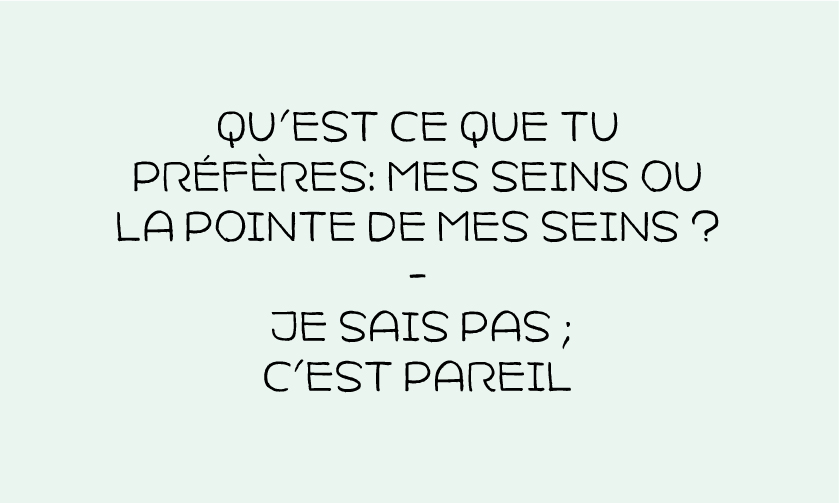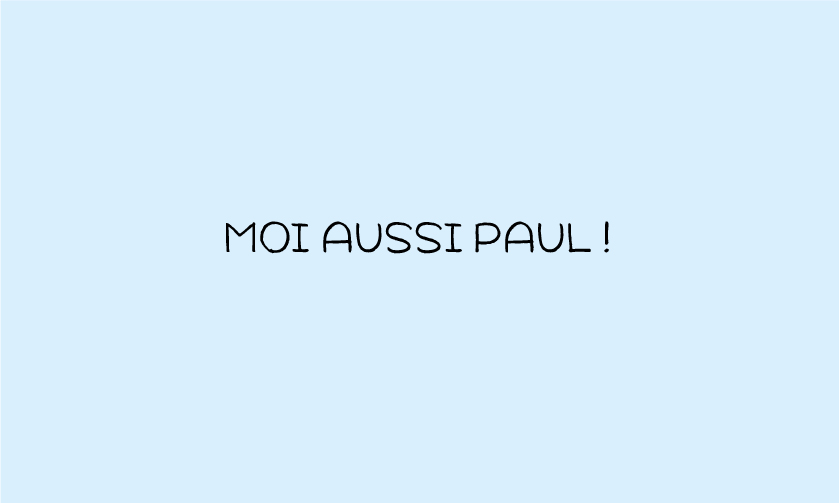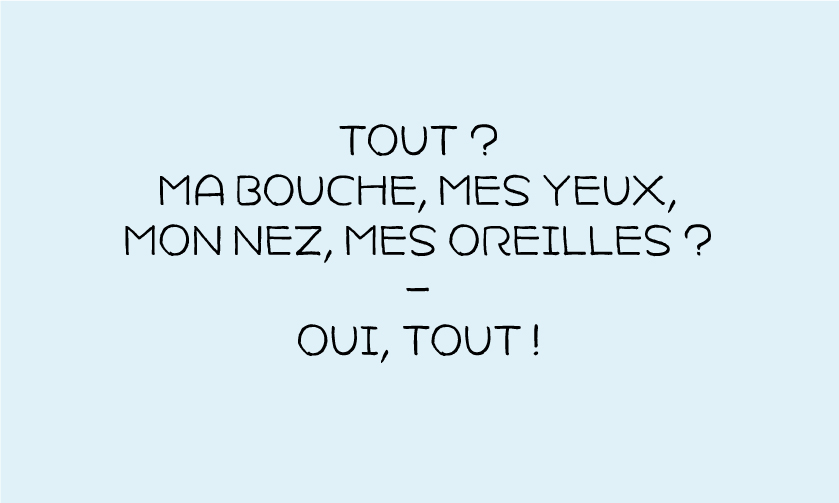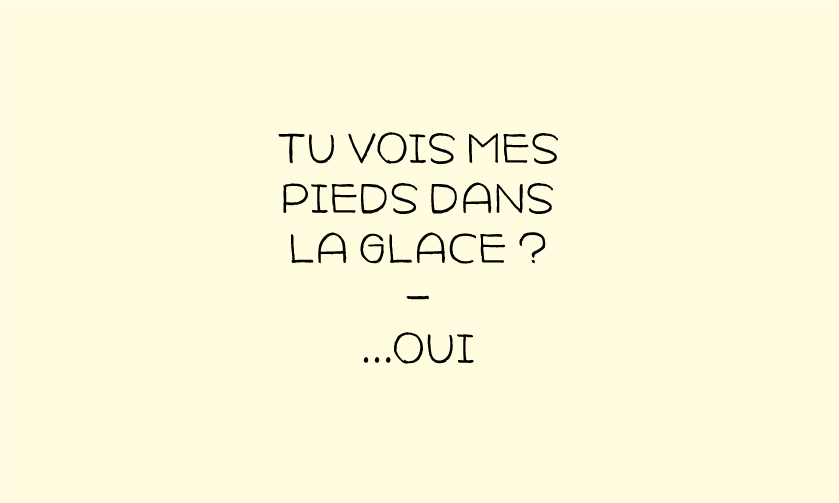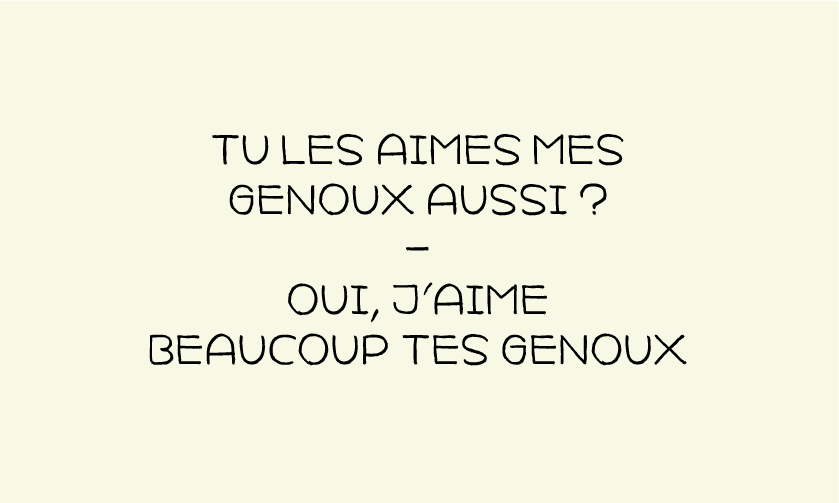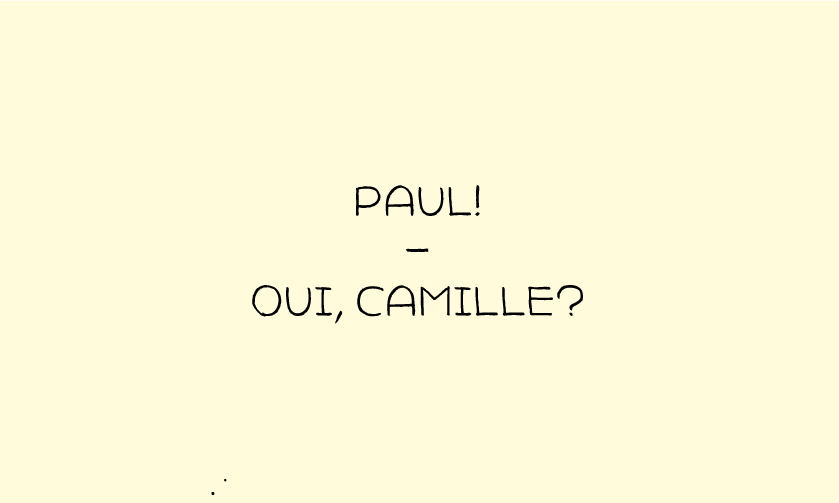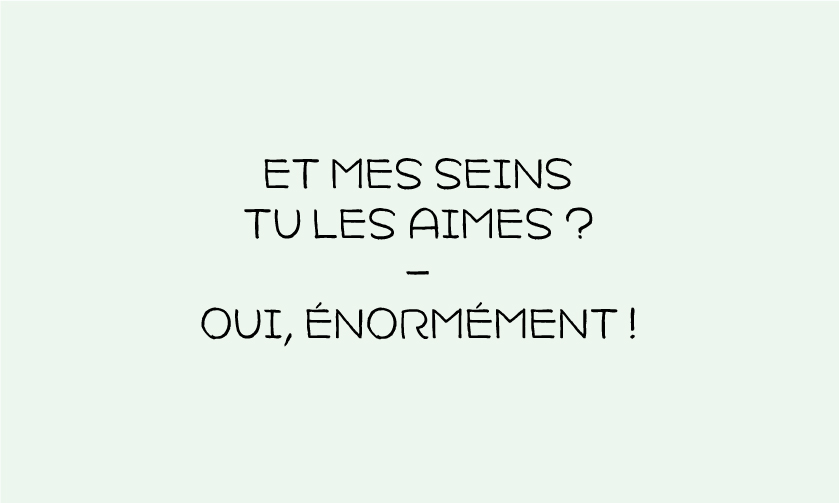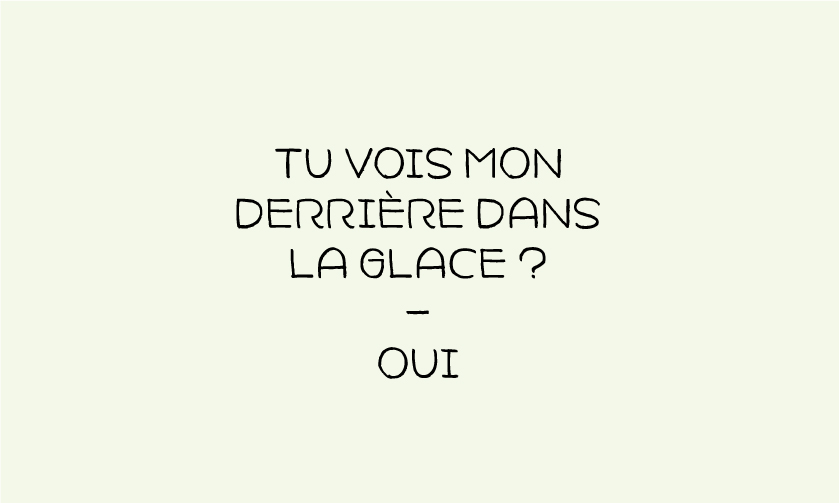
Camille Javal
Named after Brigitte Bardot in Jean-Luc Godards Film «Le Mépris» –
is a hand drawn display font with uppercase, numbers and many other glyphs.
Written scene & pictures from the Movie
«Le Mepris»
by Jean-Luc Godard